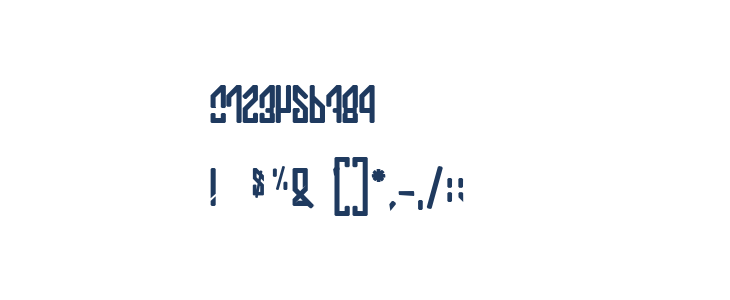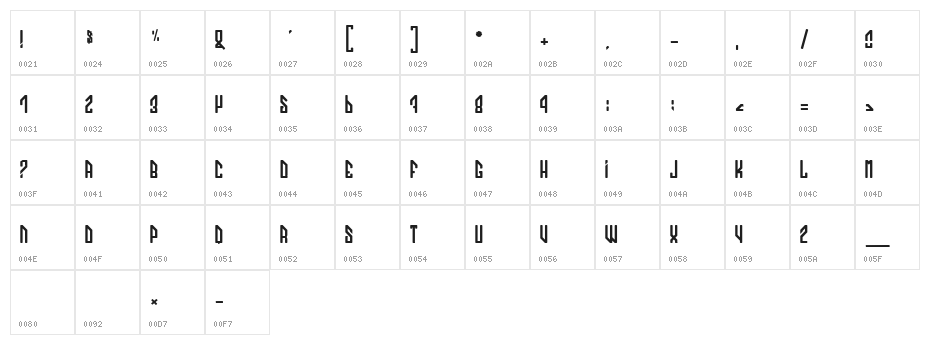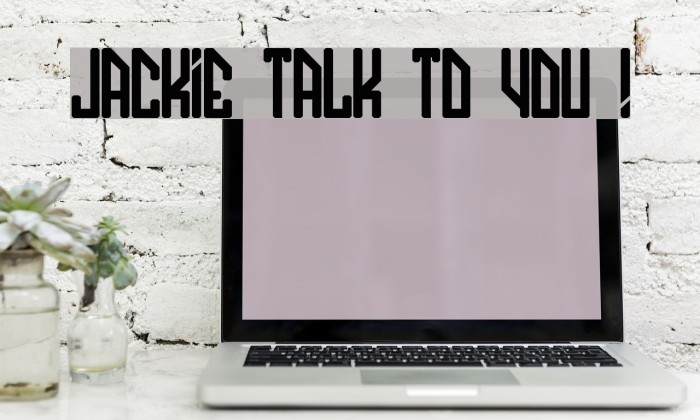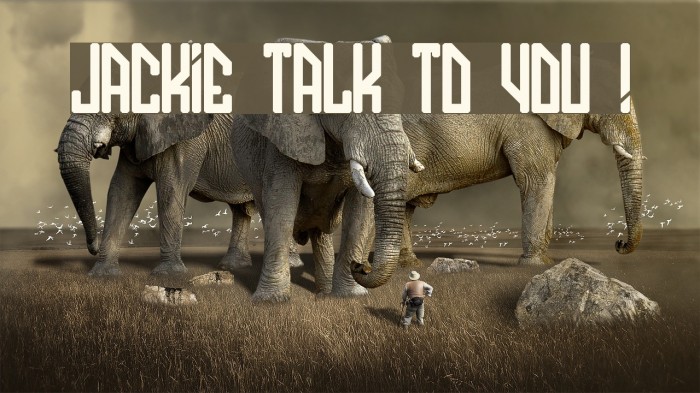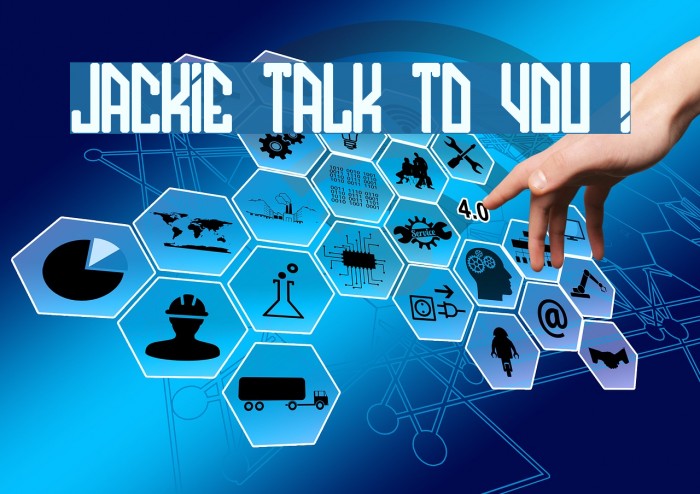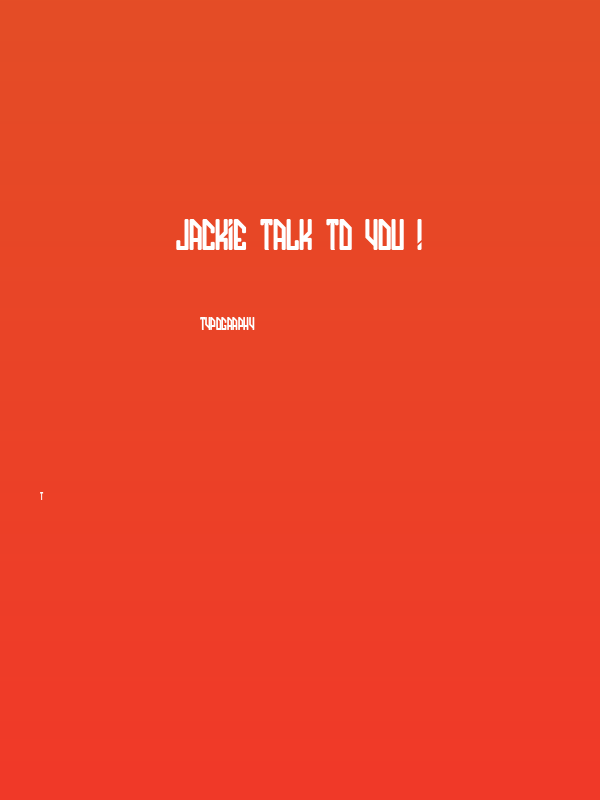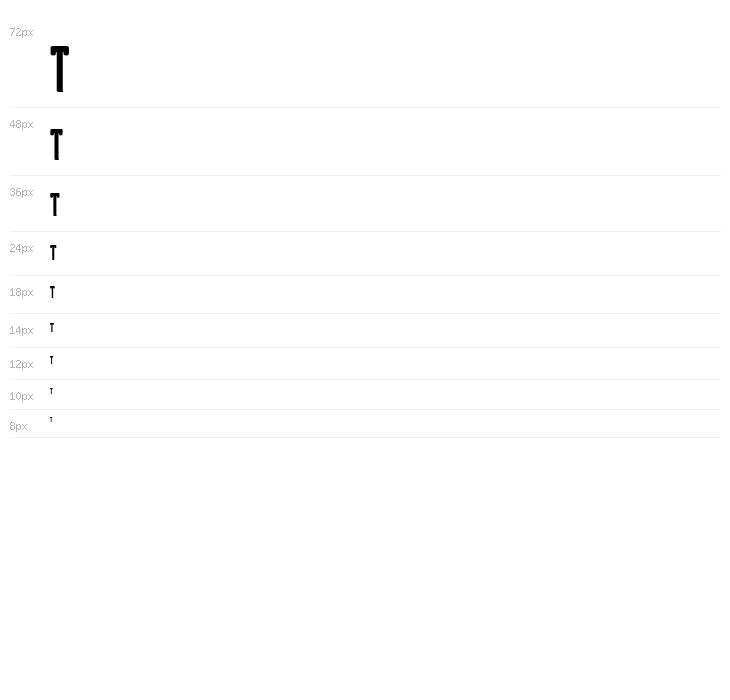
JACKIE TALK TO YOU ! Font
JACKIE TALK TO YOU ! Description
This font features a bold and geometric design with a strong presence. The characters are constructed with thick, uniform strokes, giving it a robust and modern appearance. The uppercase letters are angular and slightly condensed, creating a compact and efficient look. The numerals and special characters maintain the same boldness and geometric style, ensuring consistency across all elements. This font's unique style makes it suitable for impactful designs where attention is key.
| Proposed Projects | Ideal for branding, posters, headlines, and any design requiring a strong visual impact. |